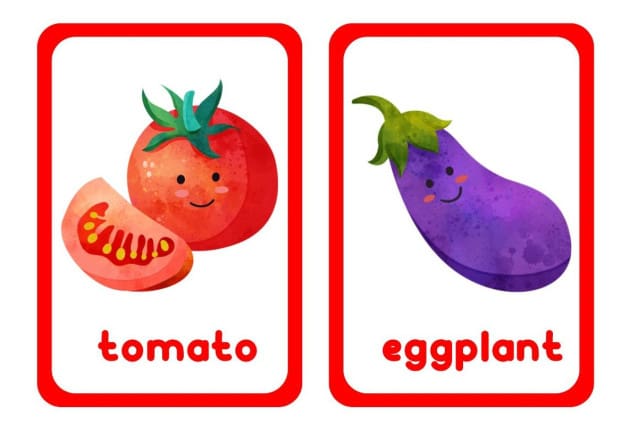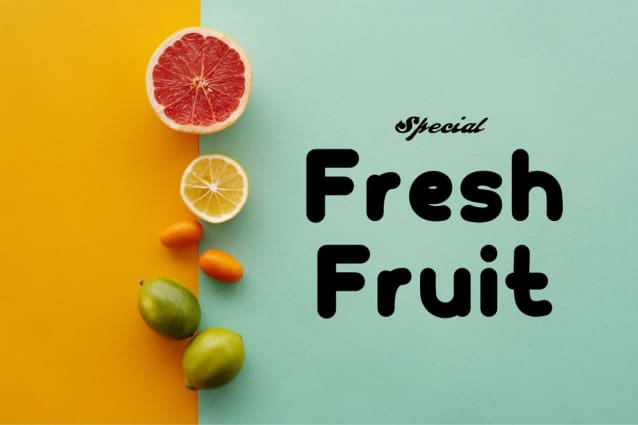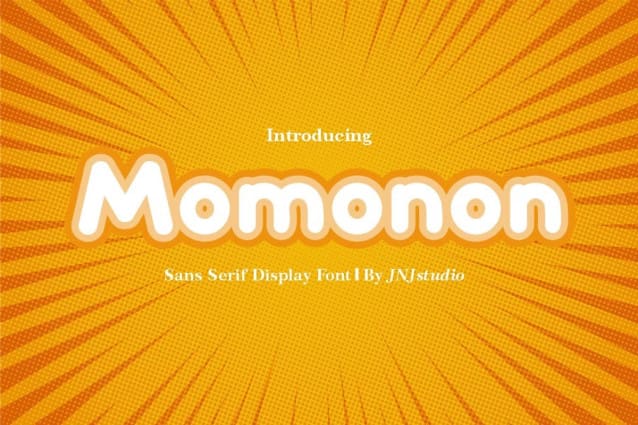
Momonon Font
Momonon Font is a bold and modern Display Sans Serif typeface designed for impactful and eye-catching visuals. It features clean lines, geometric shapes, and a balanced structure that makes it perfect for headlines, posters, and branding materials. The font’s simplicity is complemented by subtle curves, adding a touch of warmth to its overall design. Momonon Font is versatile and highly legible, making it an excellent choice for both digital and print media. Whether you’re creating a striking logo or a stylish website, Momonon provides the perfect blend of sophistication and contemporary flair.